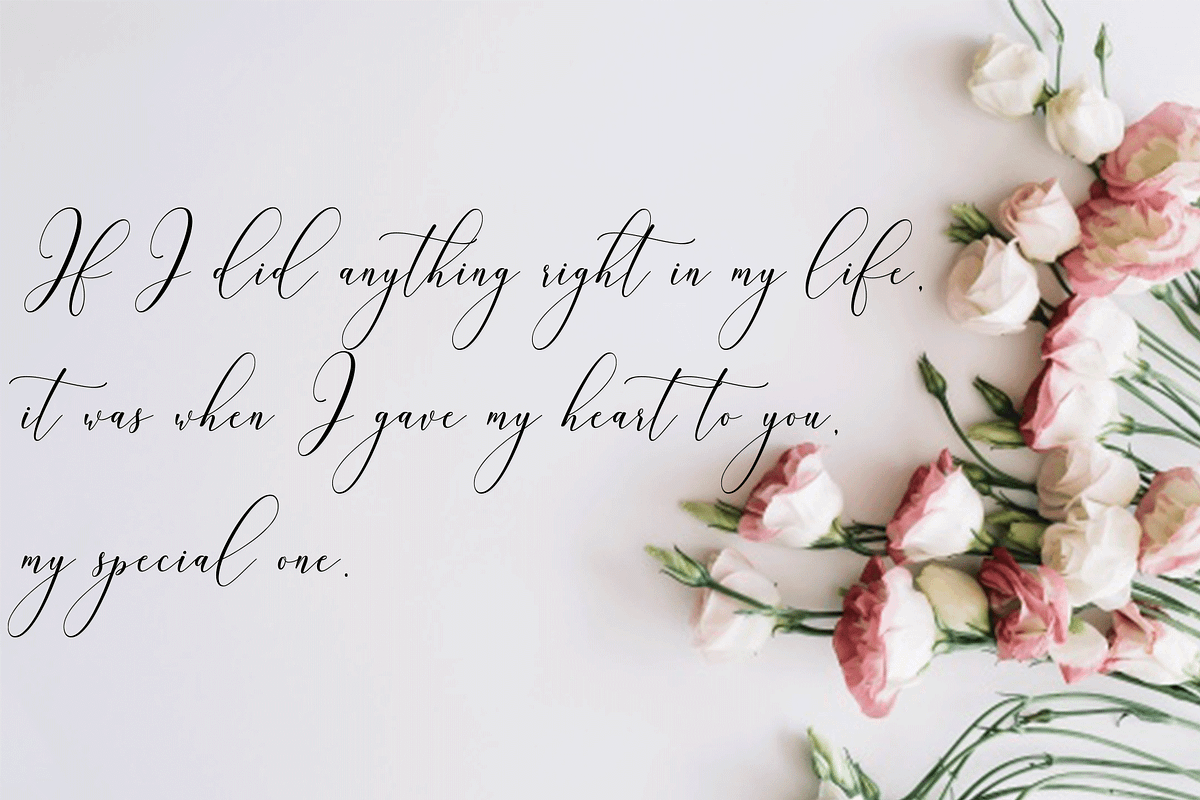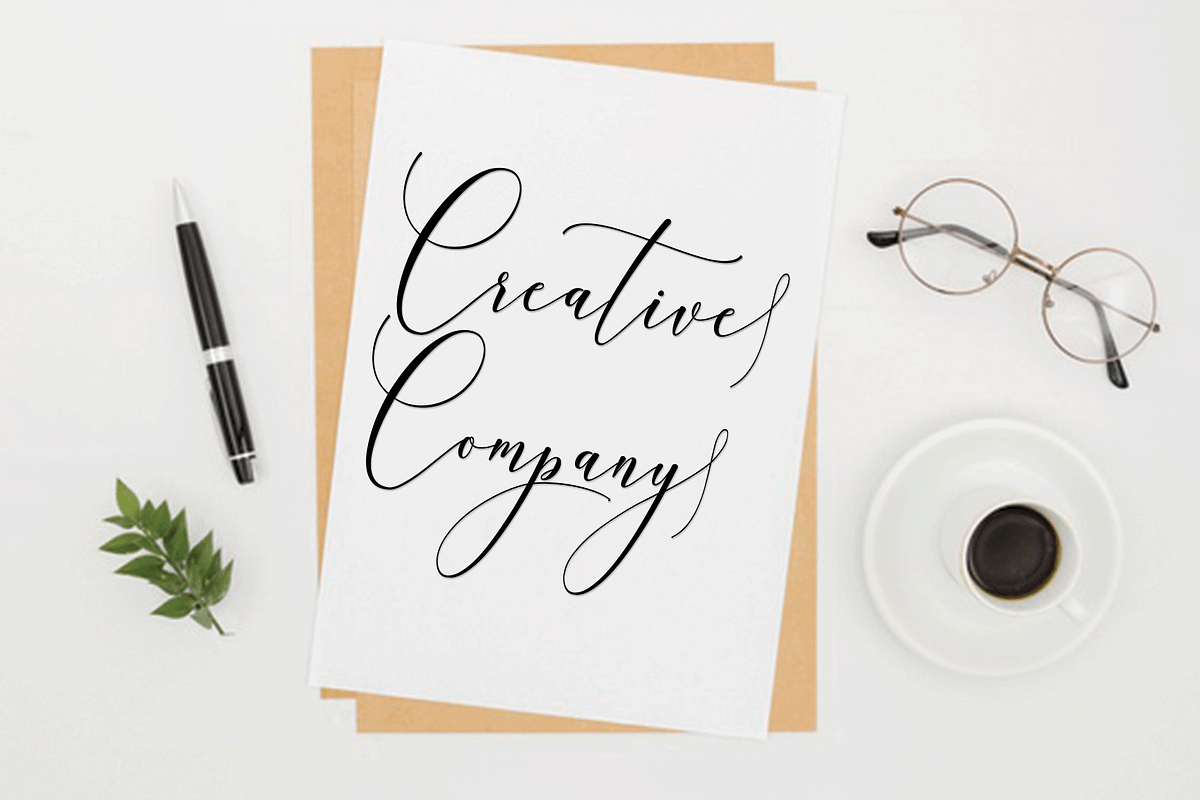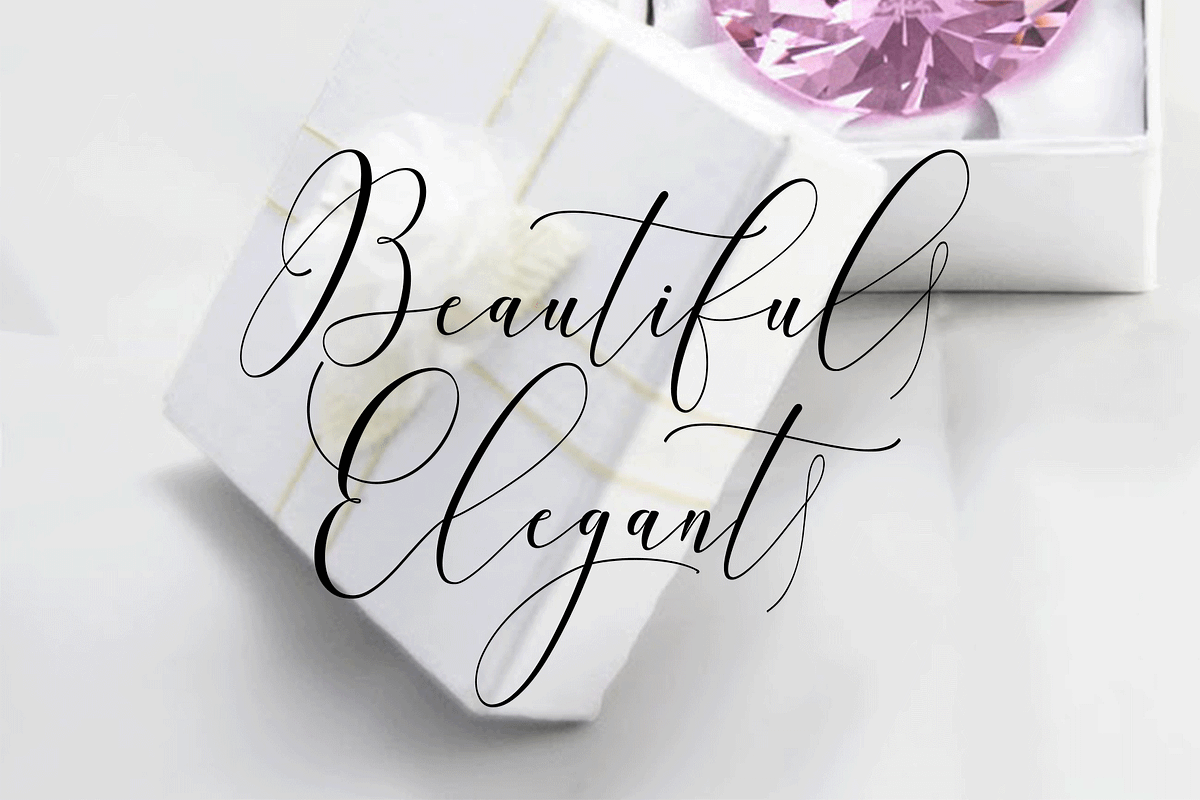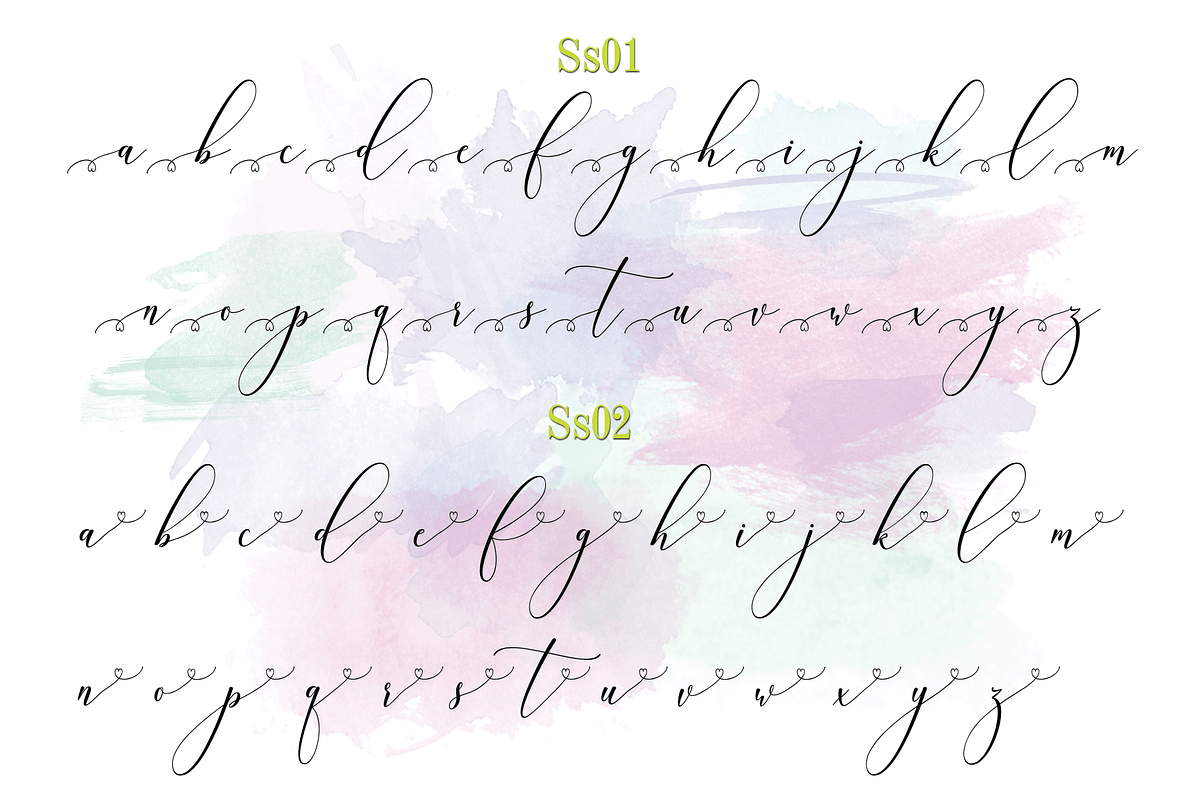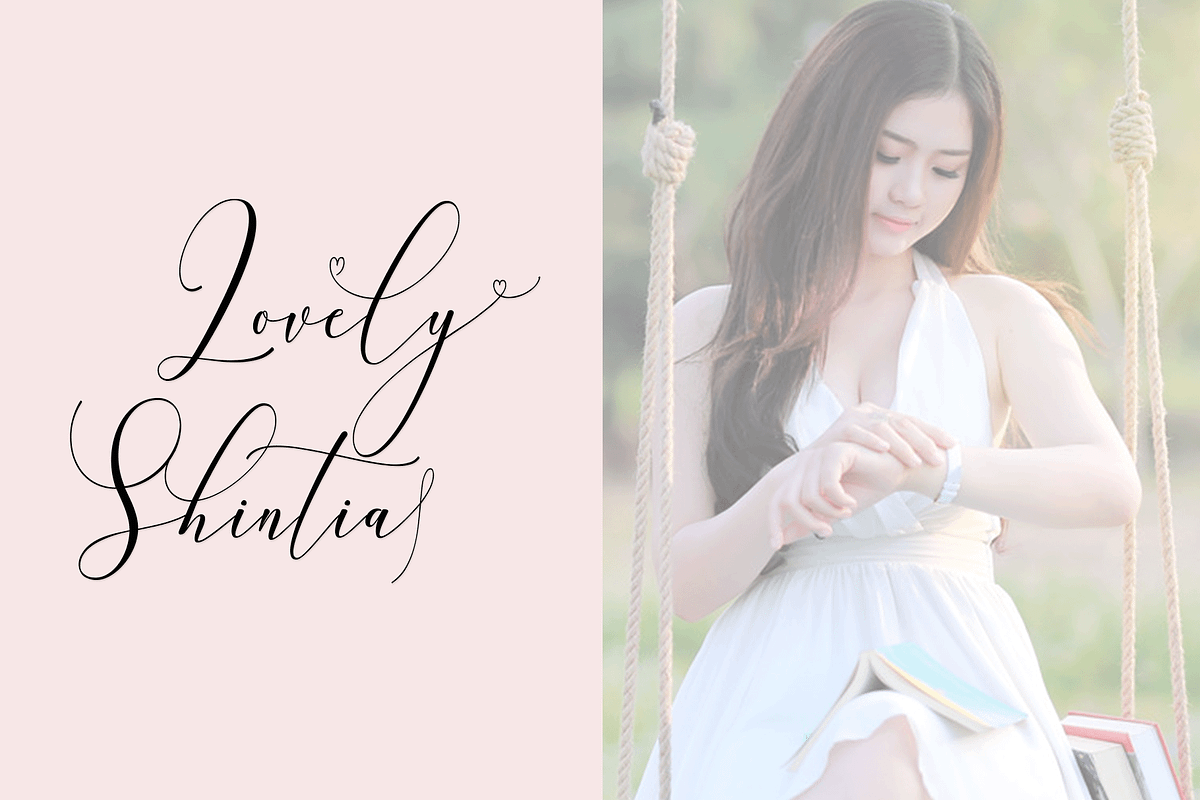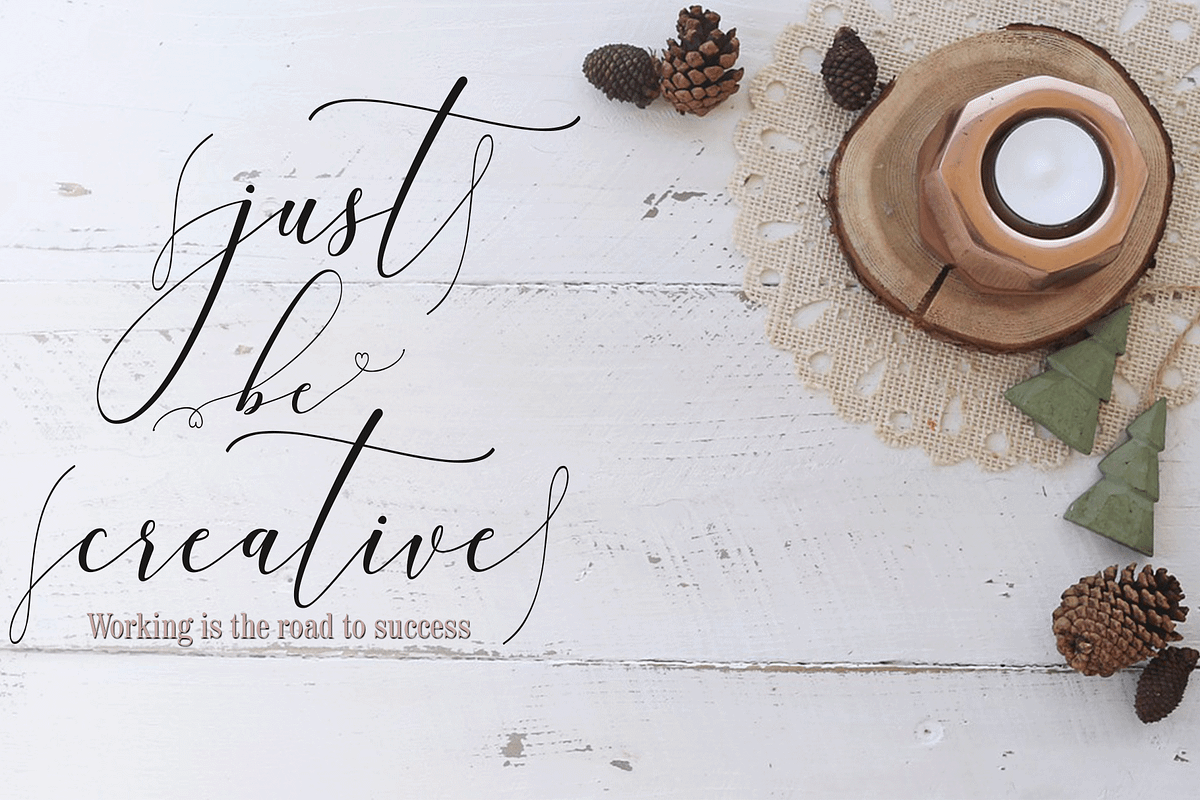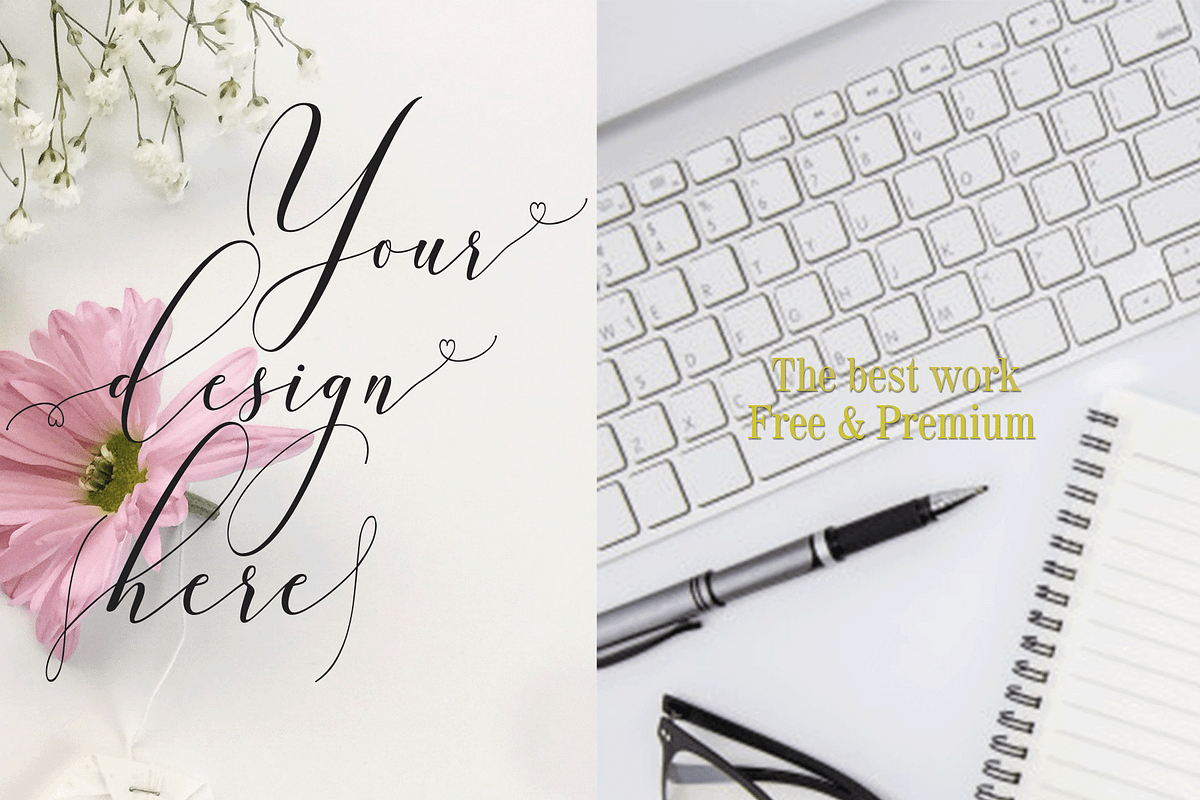
Mellanie Script font
Mellanie is a light and fresh handwritten font that will inspire any design project with its incredibly romantic feel.
Mellanie can be used for various purposes.such as headings, logos, wedding invitation, t-shirt, letterhead, signage, lable, news, posters, badges etc.
Why Mellanie Script font is worth a look
Mellanie Script font by Naqsya.Co fits naturally into Branding, posters, packaging, typography.